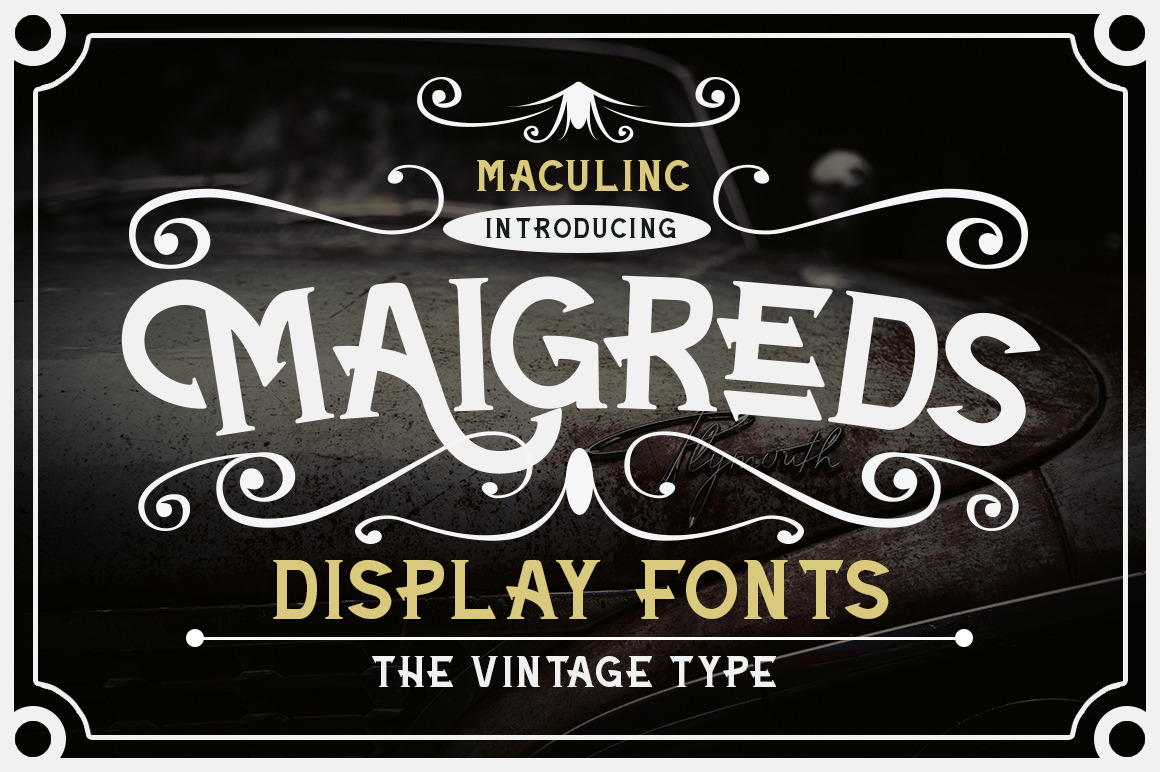
Maigreds - Display Font
Maigreds is a display font vintage simple typography and easy to read so comfortable to wear. You can use them as logos, badges, packaging, headlines, posters, t-shirts / clothing, greeting cards, business cards, and wedding invitations and more. The flowing character is ideal for creating interesting messages to your taste.
mix and match a group of alternate characters to fit your project.